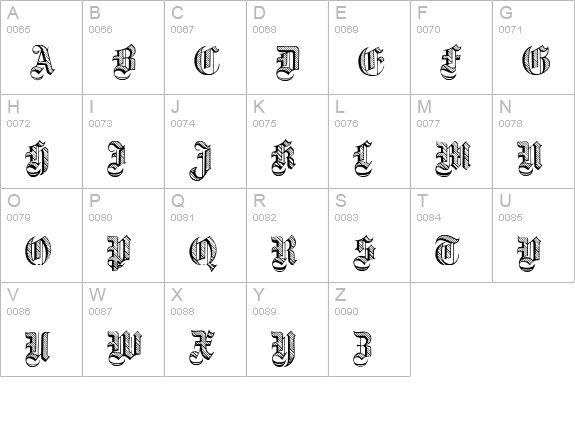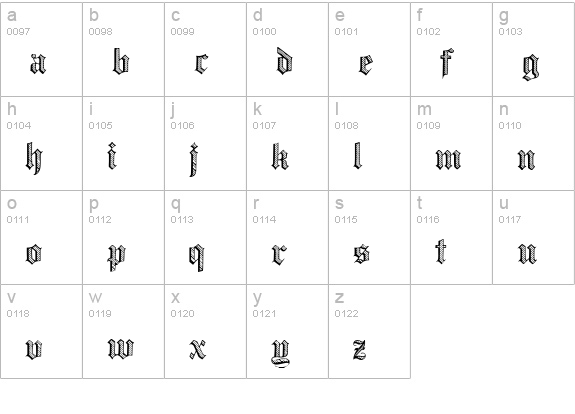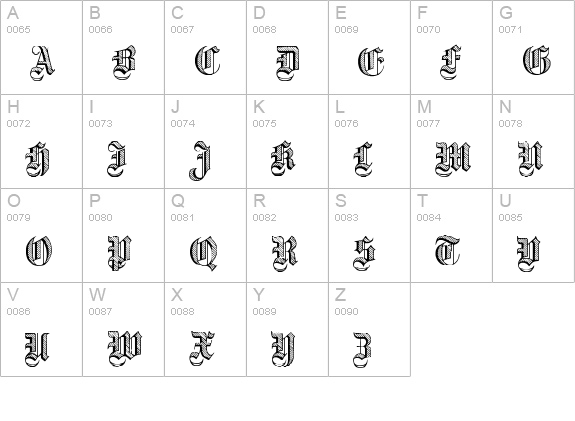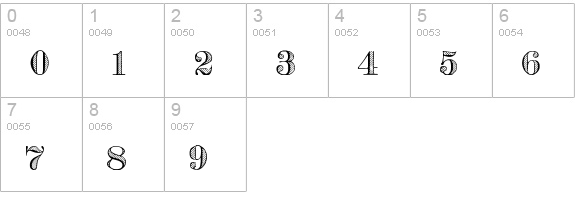
Dampfplatz DemiBold is a sub-bold, structured variant in the Dampfplatz typeface family \xE2\x80\x94 well suited to sub-headlines and emphasised passages.
Dampfplatz DemiBold font is a timeless and bold typeface that exudes confidence and sophistication. With its strong and powerful letterforms, this font makes a statement in any design project. The thick strokes and clean lines give it a sense of stability and professionalism, making it perfect for headlines, logos, and branding materials. What sets Dampfplatz DemiBold font apart is not only its striking aesthetics but also its availability for free. Yes, you read that right! This incredible font is freely available to download at FontsMarket.com. This means that you can access and use this font in your projects without any cost, making it a fantastic opportunity for designers and creatives on a budget. Whether you are designing a website, creating a poster, or working on a magazine layout, Dampfplatz DemiBold font will elevate your design with its bold and commanding presence. Its versatility allows it to complement both modern and traditional designs, making it a go-to choice for a wide range of projects. With its high legibility and distinct character, Dampfplatz DemiBold font ensures that your message will be communicated clearly and effectively. Its generous letter spacing and well-balanced proportions contribute to its readability, making it a reliable choice for both print and digital media. So why wait? Head over to FontsMarket.com and download Dampfplatz DemiBold font for free today. Discover the possibilities that this remarkable font offers and take your designs to the next level. Get ready to make a lasting impression with Dampfplatz DemiBold font, the freely available font that combines strength, style, and affordability.